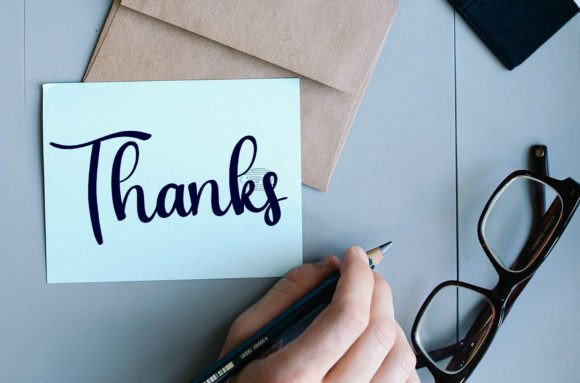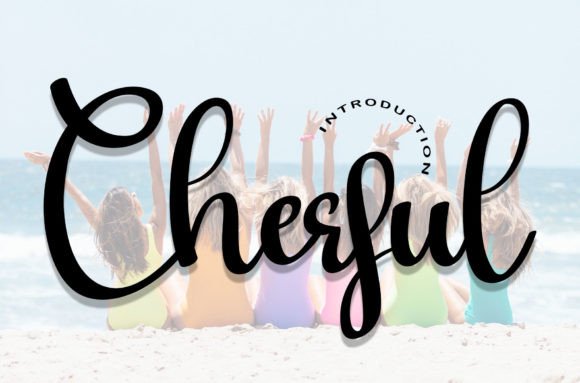
Cherful Font: The Simple Handwritten Font for Your Creative Projects
Are you looking for a font that can add a personal touch to your designs? Look no further than Cherful Font! Cherful is a simple handwritten font that has a wide range of applications, from greeting cards to headlines, and is guaranteed to bring a natural and effortless feel to your next project.
What is Cherful Font?
Cherful Font is a beautifully crafted handwritten font that exudes simplicity and elegance. Its unique charm lies in its ability to convey a sense of warmth and approachability, making it perfect for designers and crafters who want to add a personal touch to their work.
Key Features of Cherful Font
- Simple and Handwritten: Cherful Font has a simple and handwritten design that gives it a unique and authentic feel.
- Versatile: This font has a wide range of applications, from greeting cards to headlines, and can be used in various design projects.
- Natural and Effortless: Cherful Font is guaranteed to add a natural and effortless feel to your designs, making them stand out from the crowd.
Uses of Cherful Font
Cherful Font is a versatile font that can be used in various design projects, including:
- Greeting Cards: Add a personal touch to your greeting cards with Cherful Font, making them special and unique.
- Headlines: Use Cherful Font to create eye-catching headlines that grab attention and convey a sense of warmth.
- Branding: Cherful Font can be used in branding projects to create a unique and recognizable identity.
- Digital and Print Media: This font can be used in various digital and print media, including brochures, flyers, and social media graphics.
Benefits of Using Cherful Font
Using Cherful Font in your designs can have several benefits, including:
- Unique and Authentic Look: Cherful Font gives your designs a unique and authentic look that sets them apart from others.
- Emotional Connection: The handwritten design of Cherful Font can help create an emotional connection with your audience, making your designs more relatable.
- Easy to Read: Cherful Font is easy to read, making it perfect for designs that require a clear and concise message.
Tips for Using Cherful Font
Here are some tips for using Cherful Font in your designs:
- Pair with Other Fonts: Pair Cherful Font with other fonts to create a unique and visually appealing design.
- Experiment with Colors: Experiment with different colors to find the perfect combination that complements Cherful Font.
- Use in Combination with Images: Use Cherful Font in combination with images to create a design that is both visually appealing and effective.
Cherful Font is a simple yet versatile handwritten font that can add a personal touch to your designs. With its unique charm and wide range of applications, Cherful Font is perfect for designers and crafters who want to create designs that are both natural and effortless. Whether you’re creating greeting cards, headlines, or branding projects, Cherful Font is guaranteed to bring a simple and natural feel to your next project!